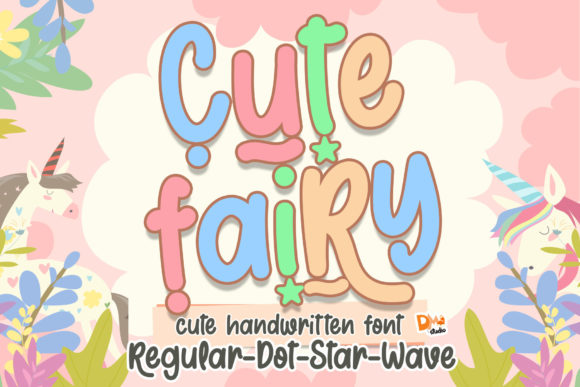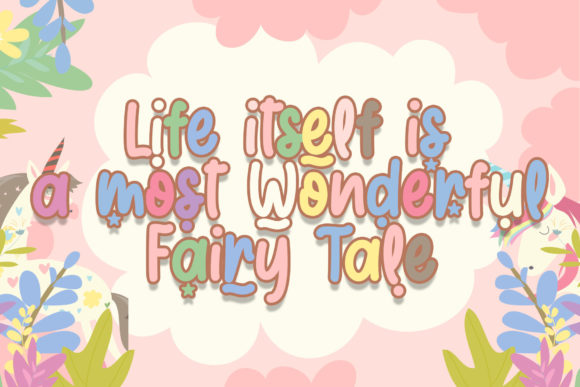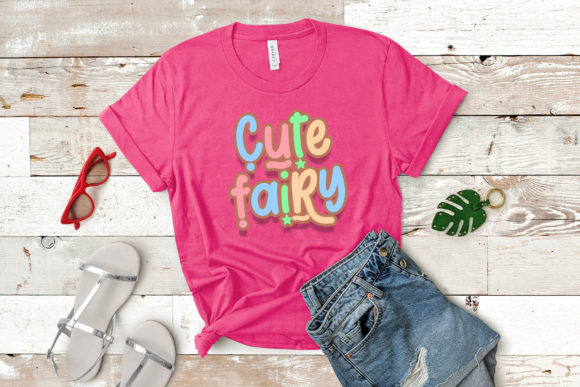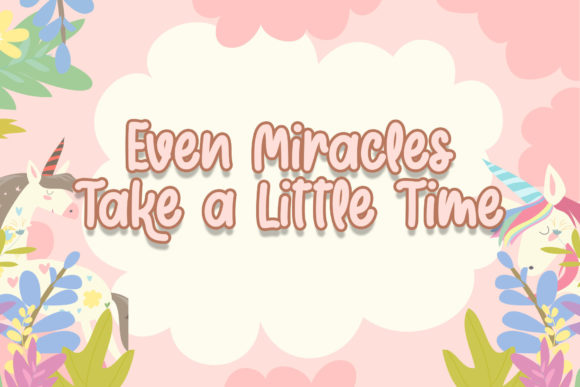
Cute Fairy Font
About the Cute Fairy Font
Explore the possibilities with Cute Fairy Font, a font that offers both beauty and functionality. Cute Fairy is a cute and simple lettered handwritten font that can be used for all chalkboard quotes or teaching material! Its authentic look will add a personal and realistic feel to your designs.
Cute Fairy’s informal, friendly style is ideal for projects requiring a lighthearted and approachable feel. It works exceptionally well in short text applications such as logos for children’s products, social media graphics, greeting cards, and short headlines on posters or invitations. However, its handwritten nature and inconsistent letterforms make it unsuitable for large bodies of text or UI elements where legibility is paramount.
Pairings should complement its casual charm. Consider pairing it with a clean sans-serif like Open Sans for a balanced contrast, or a playful script font like Pacifico for a more whimsical feel. A simple serif like Merriweather could provide a touch of classic elegance to offset the font’s informal character.
Cute Fairy’s overall personality is best described as friendly and approachable, conveying a sense of warmth and handmade charm. Avoid using it in contexts demanding sophistication or professionalism.
Cute Fairy Font Usage Examples
Cute Fairy Font Example